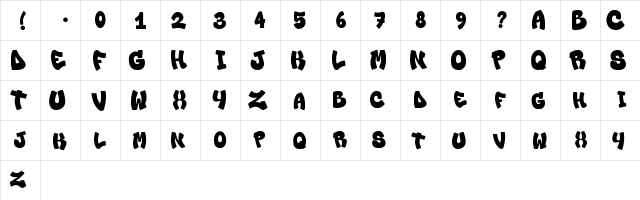
Lo_Snello Regular
Design Context for Lo_Snello Typeface
Lo_Snello is a composed and adaptable typeface that performs quietly and consistently across a wide range of design contexts.
Pro Tip: Use Lo_Snello in both headline and body roles to test its range before committing to a single application.